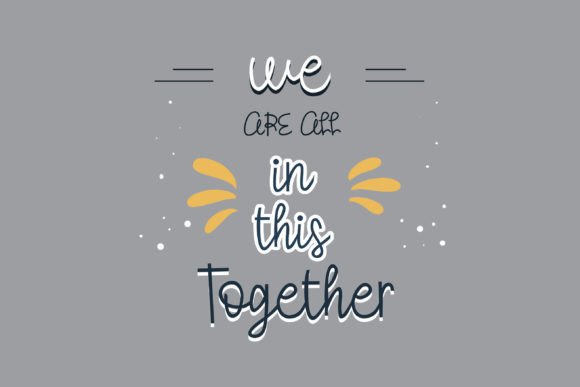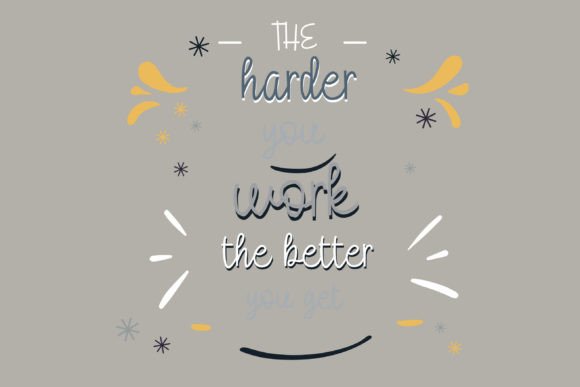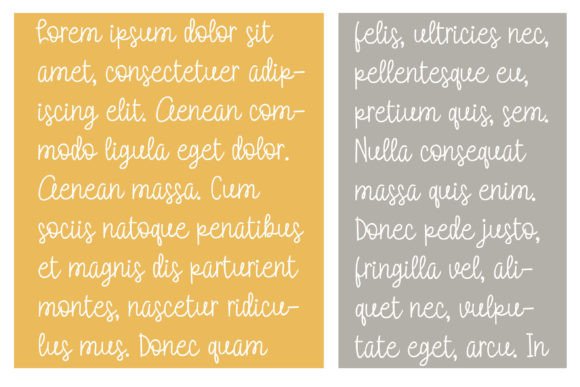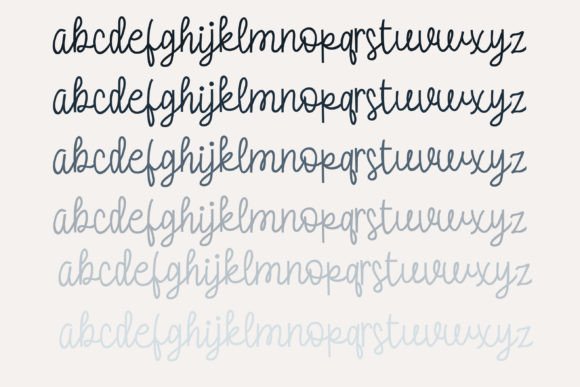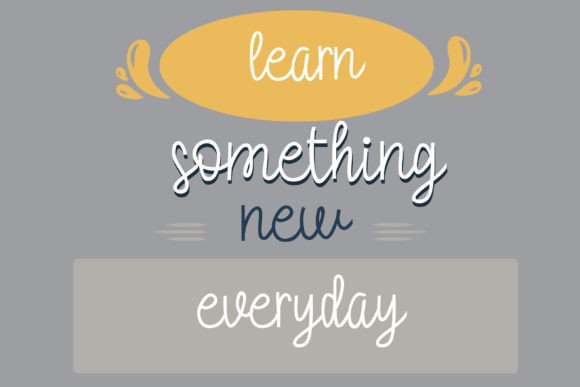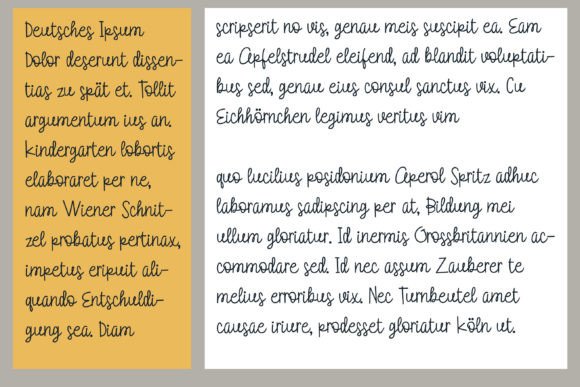
Introducing Boomstick Font: Add a Touch of Whimsy to Your Designs
Are you tired of using the same old fonts in your designs? Look no further! We’re excited to introduce our latest script font, Boomstick, a quirky and cute addition that will bring a touch of whimsy and charm to your creations. With its playful shapes and unexpected details, Boomstick is perfect for designers and crafters looking to add some fun and personality to their work.
What Makes Boomstick Font So Special?
Boomstick font is a unique and delightful script font that is sure to capture the attention of your audience. Each letter is carefully crafted with playful shapes and unexpected details, giving it a fun and charming look that’s hard to ignore. Whether you’re designing greeting cards, social media graphics, or any other type of visual content, Boomstick is the perfect choice for adding a touch of whimsy and personality to your designs.
Key Features of Boomstick Font
- Quirky and Cute Design: Boomstick font features a quirky and cute design that’s perfect for designs that require a touch of whimsy and charm.
- Playful Shapes and Unexpected Details: Each letter is crafted with playful shapes and unexpected details, giving it a fun and delightful look.
- Perfect for Various Design Projects: Boomstick is suitable for a wide range of design projects, from greeting cards to social media graphics, and everything in between.
- Easy to Read and Understand: Despite its playful design, Boomstick font is easy to read and understand, making it perfect for use in body text and headlines.
Use Cases for Boomstick Font
Boomstick font is versatile and can be used in a variety of design projects, including:
- Greeting Cards: Add a touch of whimsy and charm to your greeting cards with Boomstick font.
- Social Media Graphics: Use Boomstick font to create eye-catching social media graphics that will capture the attention of your audience.
- Invitations: Make your invitations stand out with Boomstick font’s playful and charming design.
- Logos and Branding: Use Boomstick font to create a unique and memorable logo or brand identity.
Tips for Using Boomstick Font Effectively
Here are some tips for using Boomstick font effectively in your designs:
- Pair with Other Fonts: Pair Boomstick font with other fonts to create a unique and visually appealing combination.
- Use in Headlines and Body Text: Use Boomstick font in headlines and body text to add a touch of whimsy and charm to your designs.
- Experiment with Colors and Textures: Experiment with different colors and textures to add depth and interest to your designs.
In conclusion, Boomstick font is a unique and delightful script font that’s perfect for designers and crafters looking to add a touch of whimsy and charm to their designs. With its quirky and cute design, playful shapes, and unexpected details, Boomstick is sure to capture the attention of your audience and make your designs stand out. So why wait? Download Boomstick font today and start creating fun and delightful designs that will leave a lasting impression!